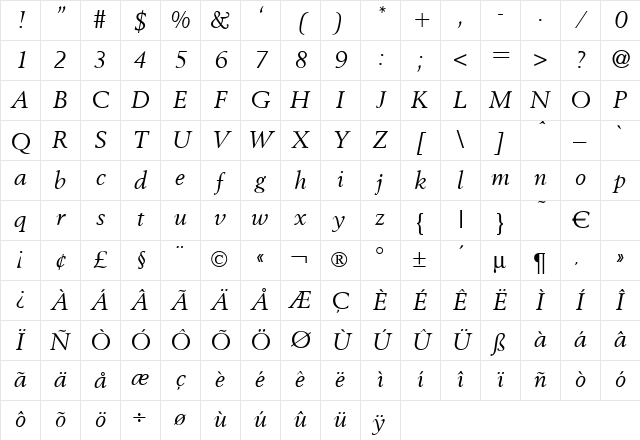
BergoniaDB is a composed and adaptable typeface that performs quietly and consistently across a wide range of design contexts. The slanted form adds forward momentum and visual energy.